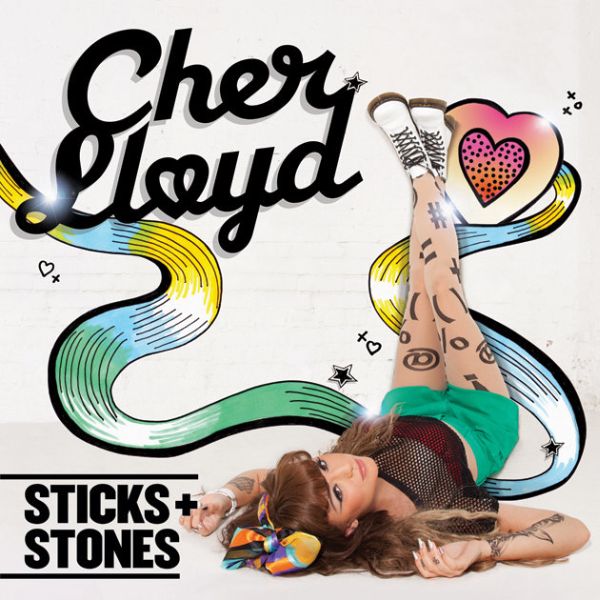
Sticks and Stones Font
Fonts in UseSticks and Stones is an album by American singer-songwriter and actress, Cher Lloyd, released in 2011. The album features a mix of pop, hip-hop, and R&B, and includes the hit singles "Want U Back" and "Oath".
It is likely that the album title uses the bold sans-serif typeface, possibly Knockout No. 70 Welterweight, while the singer's name is set in script lettering, possibly using the typeface Radio designed by Magnus Rakeng.